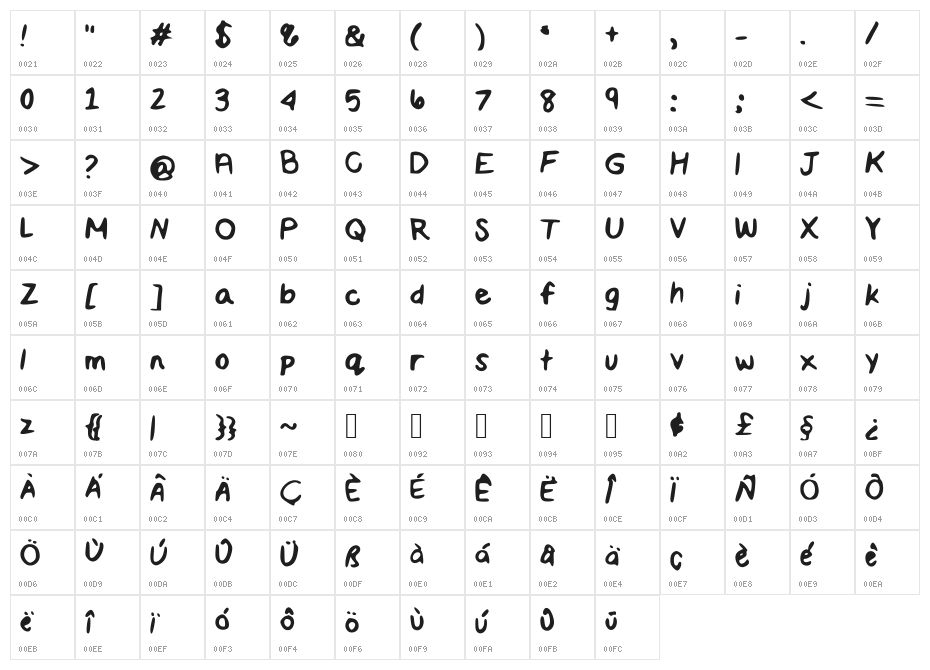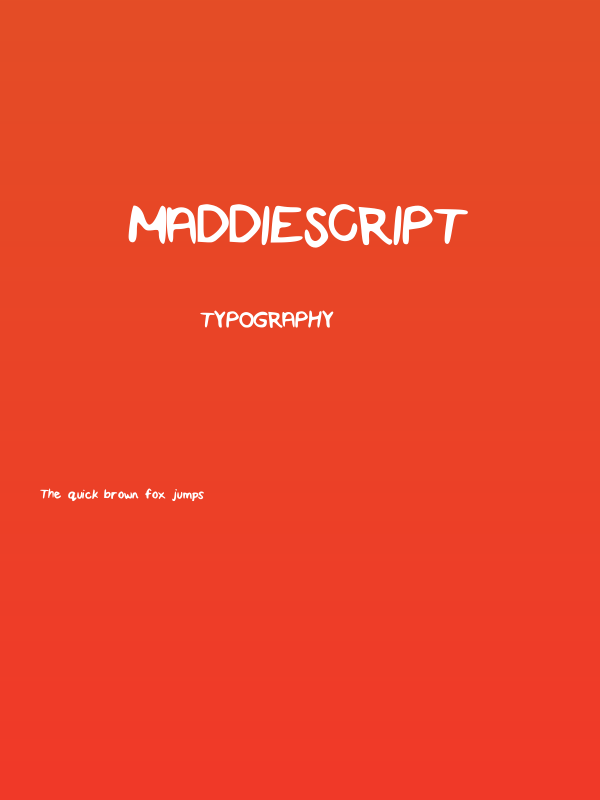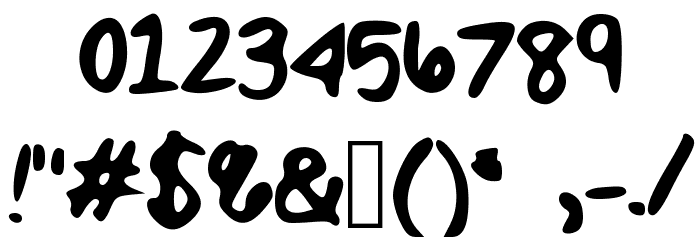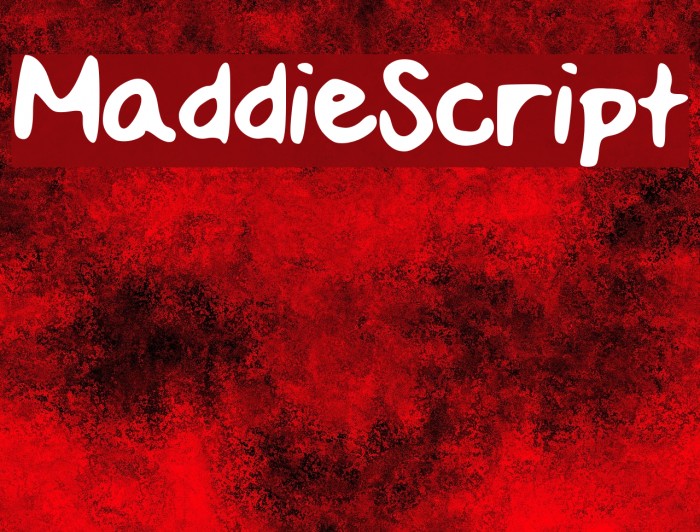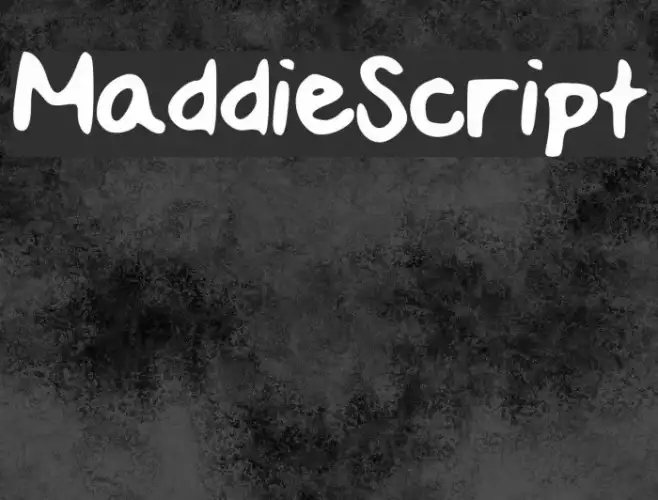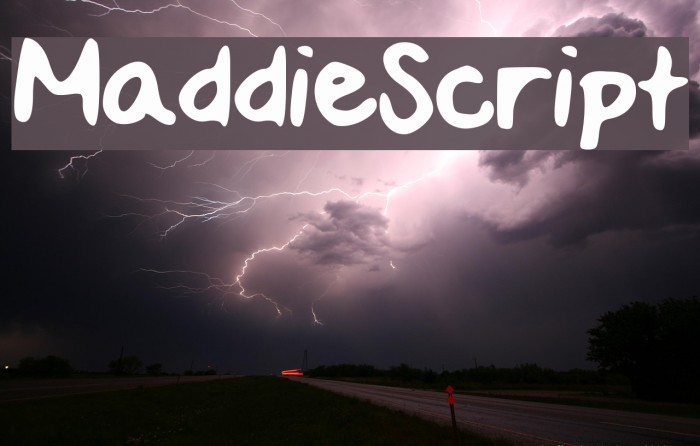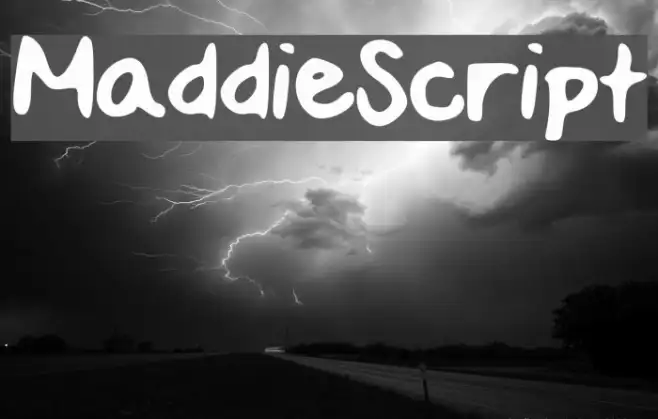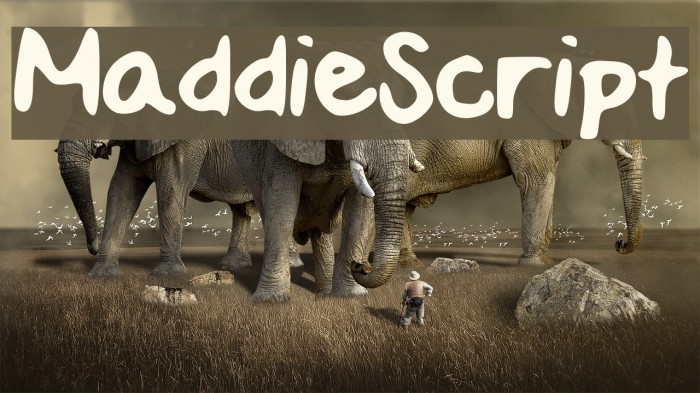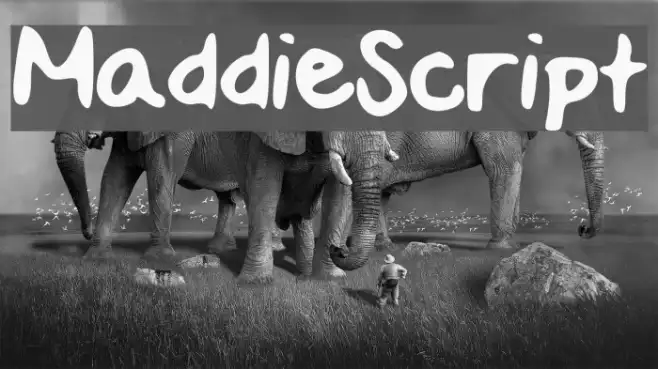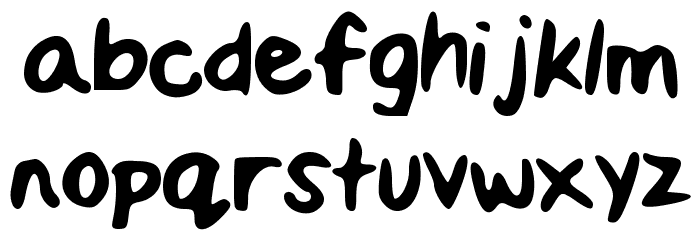
MaddieScript Font
MaddieScript Description
This playful and energetic font features a bold, handwritten style with a casual and friendly appearance. The characters are rounded and slightly irregular, giving it a lively and informal feel. The uppercase and lowercase letters are well-balanced, with a consistent stroke width that maintains readability. The numbers and special characters follow the same playful aesthetic, making it versatile for various design needs. Its unique style is perfect for projects that require a personal touch or a fun, approachable vibe.
| Proposed Projects | Ideal for greeting cards, children's books, playful branding, and social media graphics. |